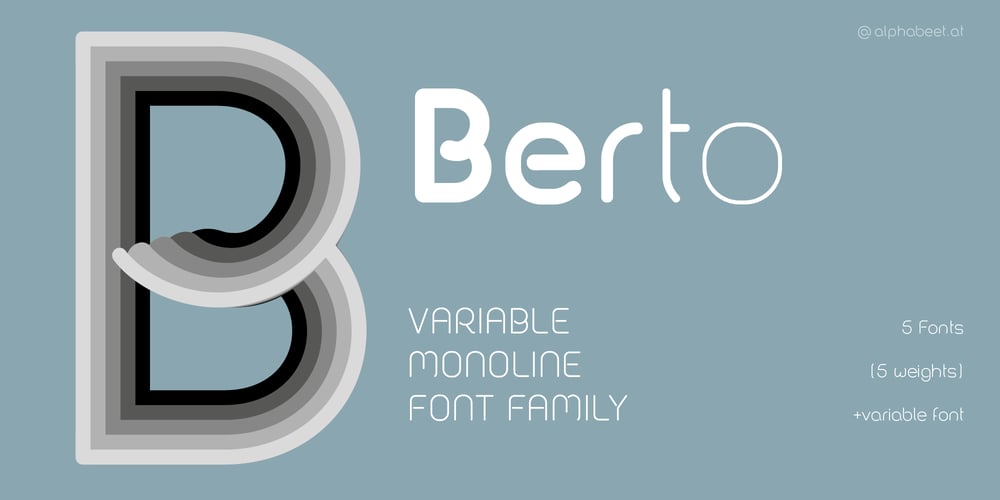
Berto
Berto font
Berto Font Family was designed by Florian Kriegner and published by alphabeet.at. Berto contains 6 styles and family package options. Berto is a variable monoline font face. With two stylistic sets it is flexible in usage either for display or for reading matters. It was specially drawn for a corporate design in 2011, and since then has been continuously rebuilt and extended to a font family with five weights and a variable font.